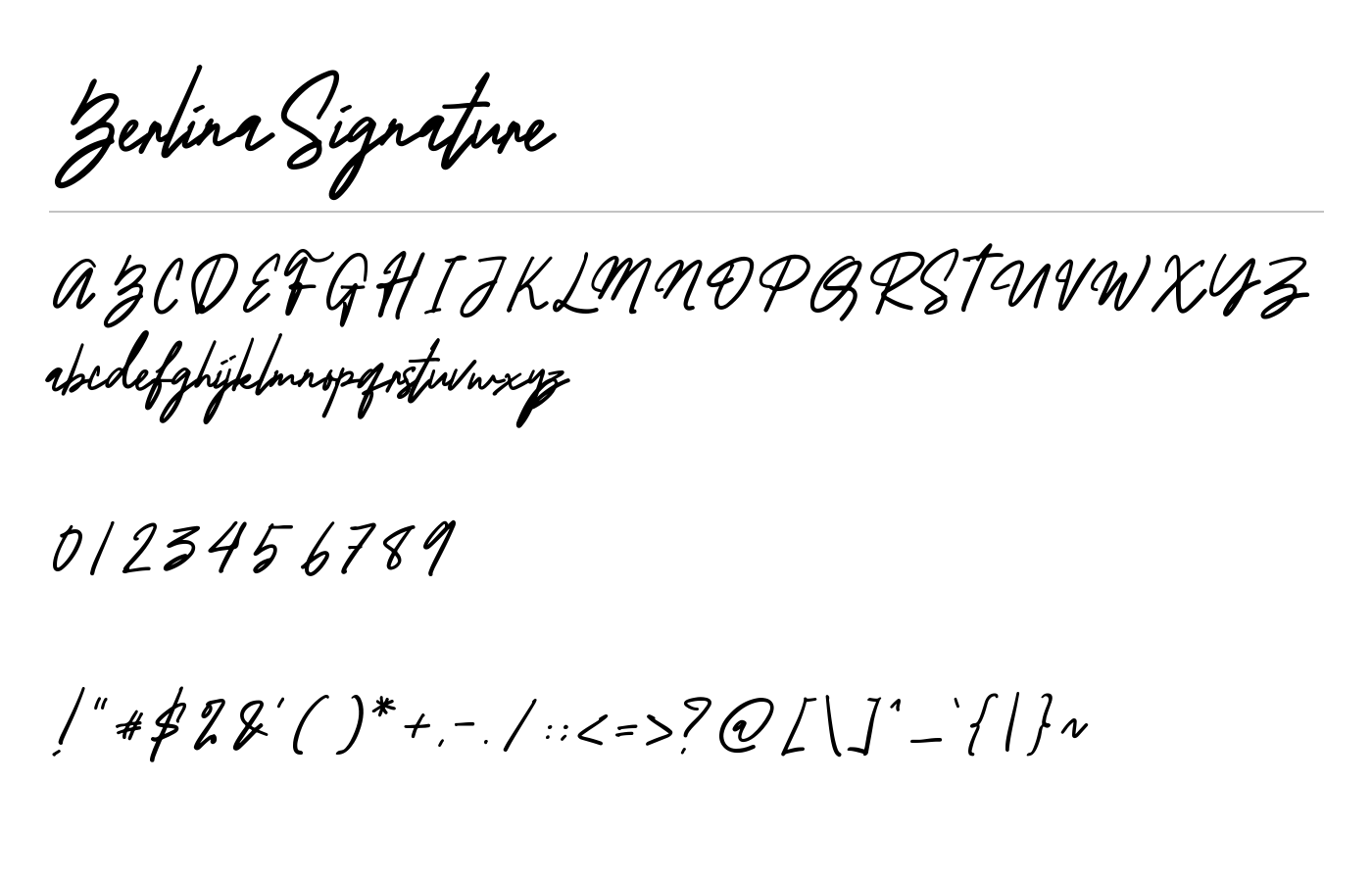
BerlinaSignature is a stylish script font that captures the fluidity and personal touch of elegant handwriting. Its slender, slightly slanted letterforms with varied stroke thicknesses create a dynamic yet refined appearance, perfect for adding a sophisticated, approachable feel to branding, invitations, and editorial headlines. This font works especially well where a modern, chic, and friendly signature style is desired.
BerlinaSignature Font